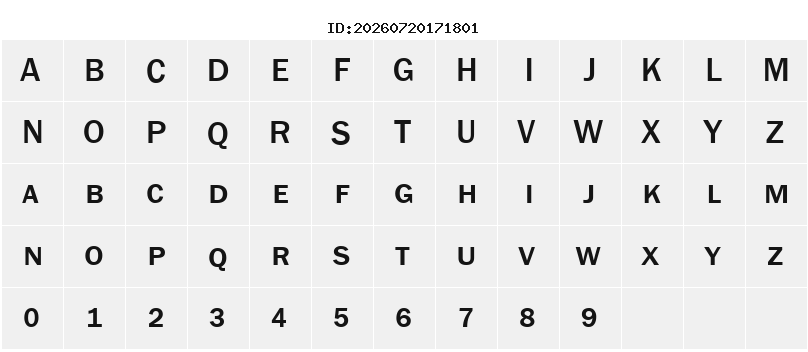
FranklinGothicNewSmc-Medium Preview
• Font Name: FranklinGothicNewSmc-Medium
• Designer: SoftMaker Software GmbH
• Manufacturer: SoftMaker Software GmbH
About FranklinGothicNewSmc-Medium.ttf
FranklinGothicNewSmc-Medium.ttf is a modern, elegant sans-serif font designed for ultimate readability and visual harmony. Perfect for branding, headlines, web design, and print materials.